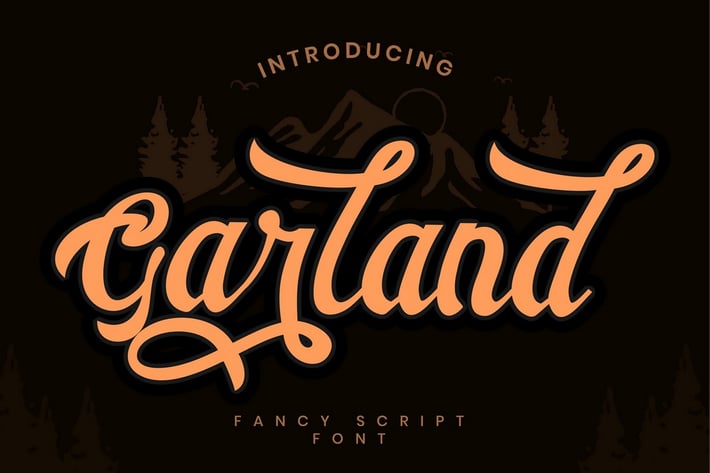
Garland - Fancy Script Font
Garland
Garland is a modern script that inspired by streetwear and combination hand lettering style.
Garland has many opentype features like ligature, alternate, swash and also support multi language.
Comes with feature :
Alternate , Ligature & Swash
Number, Punctuation And Symbols
Multilanguage Support.